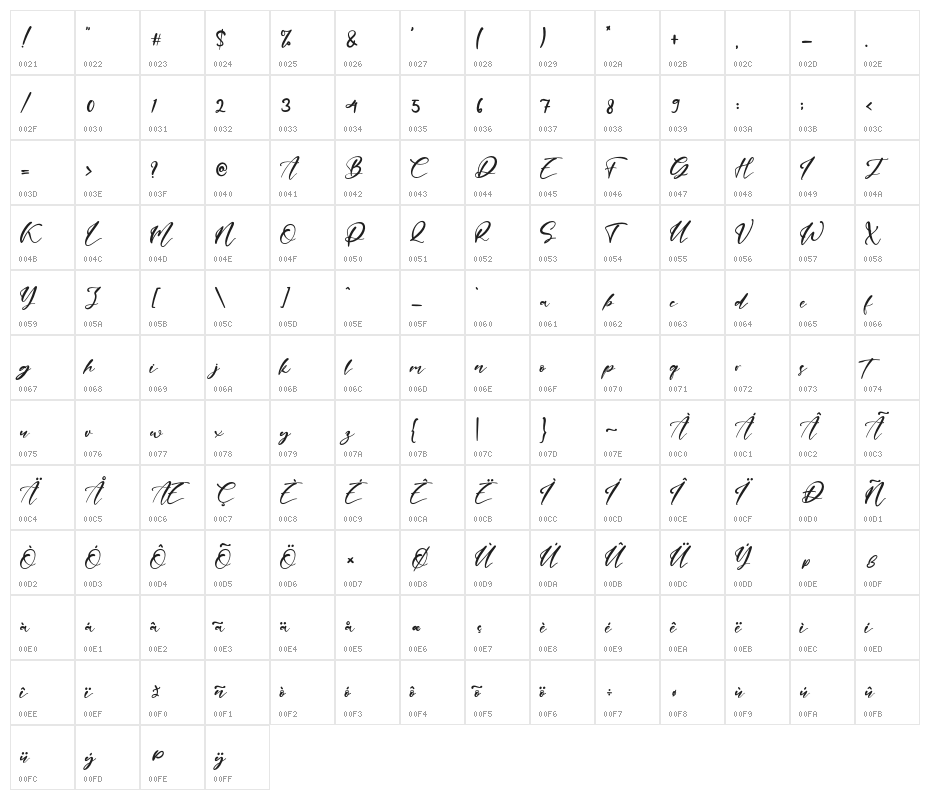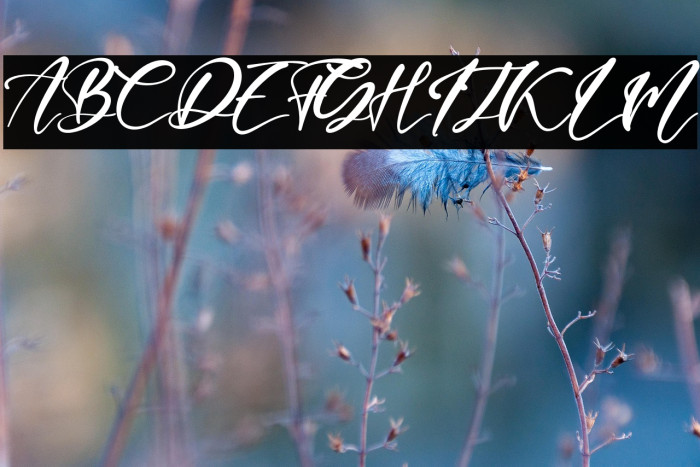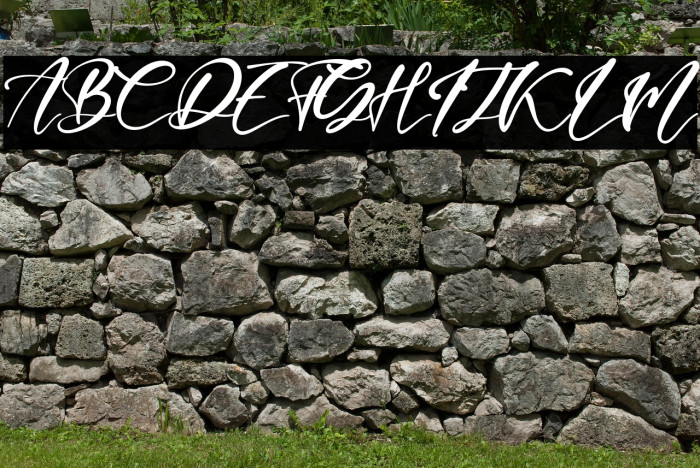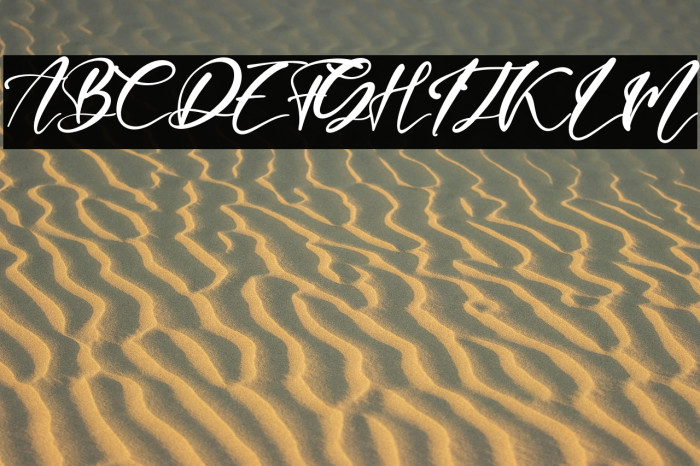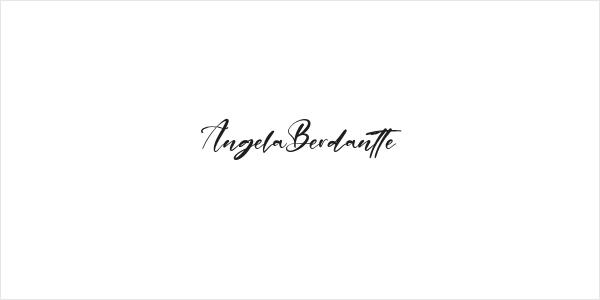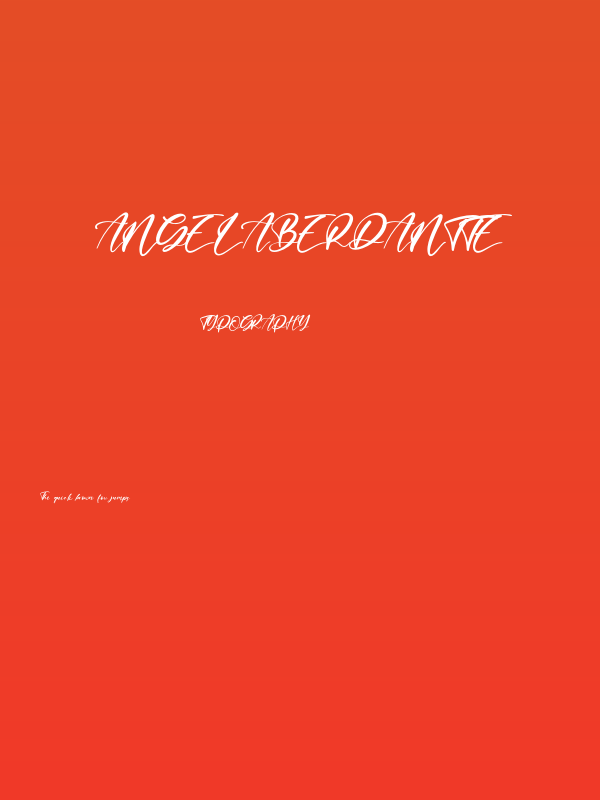
AngelaBerdantte Font
AngelaBerdantte Description
This font exhibits a flowing, cursive style with a modern twist. The letters are interconnected, creating a seamless and elegant appearance. The strokes are bold and expressive, with varying thickness that adds a dynamic feel. Uppercase letters are particularly ornate, featuring loops and flourishes that enhance the decorative quality. Lowercase letters maintain a consistent style, complementing the uppercase with their own subtle curves. Numbers and special characters are designed to match the overall aesthetic, ensuring a cohesive look across all text elements.
| Proposed Projects | Ideal for wedding invitations, branding projects, and elegant logo designs. |